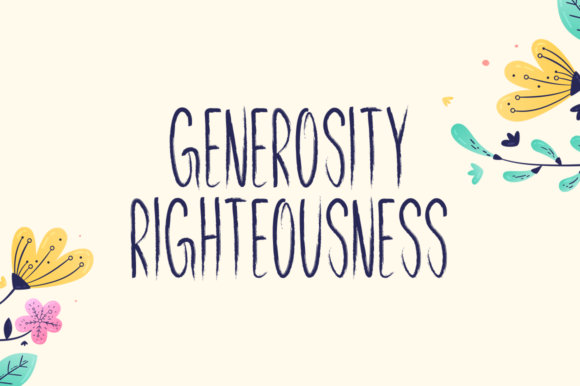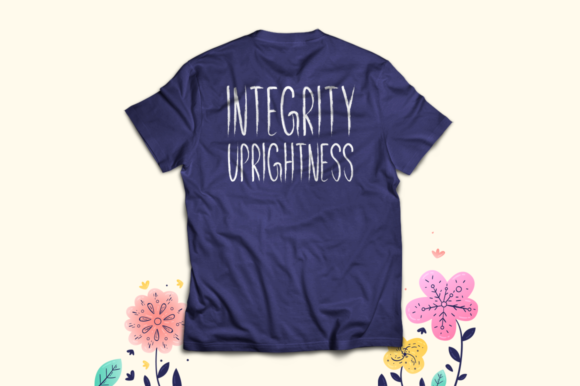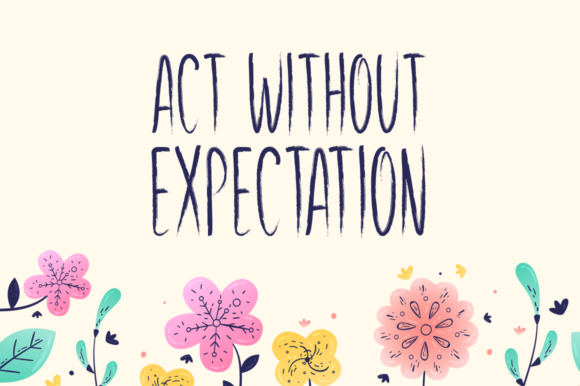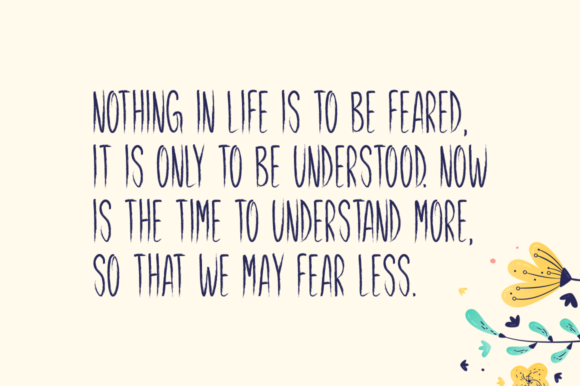
Introducing Generous Monarch Font: A Quirky and Creative Display Font
Are you tired of using the same old fonts for your designs? Look no further than the Generous Monarch Font, a unique and interesting display font that’s sure to add a creative spark to your projects. With its quirky and eye-catching style, this font is perfect for designers and crafters who want to make their designs stand out from the crowd.
A Versatile Font for a Wide Range of Contexts
One of the best things about the Generous Monarch Font is its versatility. It’s a great choice for a wide variety of contexts, from thank you cards and quotes to greeting cards, logos, and business cards. Whether you’re working on a personal project or a professional design, this font is sure to make a statement.
What Makes Generous Monarch Font So Special?
So, what sets the Generous Monarch Font apart from other fonts? For starters, its quirky and playful style is sure to grab attention. The font’s unique lettering and spacing give it a charming, hand-crafted feel that’s perfect for designs that need a personal touch. Plus, the font’s bold and expressive style makes it perfect for headlines, titles, and other design elements that need to make a statement.
The Generous Monarch Font is a dream come true for designers and crafters who want to add a creative spark to their projects. Whether you’re working on a DIY craft project, a social media graphic, or a professional design, this font is sure to inspire. Its unique style and versatility make it perfect for a wide range of projects, from paper crafting and card making to digital design and branding.
How to Use Generous Monarch Font in Your Designs
So, how can you use the Generous Monarch Font in your designs? Here are a few ideas to get you started:
• Use it as a headline font for a blog post or social media graphic
• Add it to your business cards or letterhead for a unique and professional look
• Use it to create eye-catching quotes and posters
• Incorporate it into your greeting cards and thank you notes
• Make it a part of your branding and logo design
Tips for Getting the Most Out of Generous Monarch Font
To get the most out of the Generous Monarch Font, here are a few tips to keep in mind:
• Experiment with different colors and textures to add depth and interest to your designs
• Pair it with other fonts to create a unique and visually appealing combination
• Use it in combination with images and graphics to add visual interest
• Don’t be afraid to get creative and try new things – the Generous Monarch Font is all about experimentation and self-expression!
In conclusion, the Generous Monarch Font is a unique and interesting display font that’s perfect for designers and crafters who want to add a creative spark to their projects. With its quirky and eye-catching style, versatility, and bold and expressive style, this font is sure to make a statement in any design. So why settle for the same old fonts when you can try something new and exciting? Download the Generous Monarch Font today and see the difference it can make in your designs!